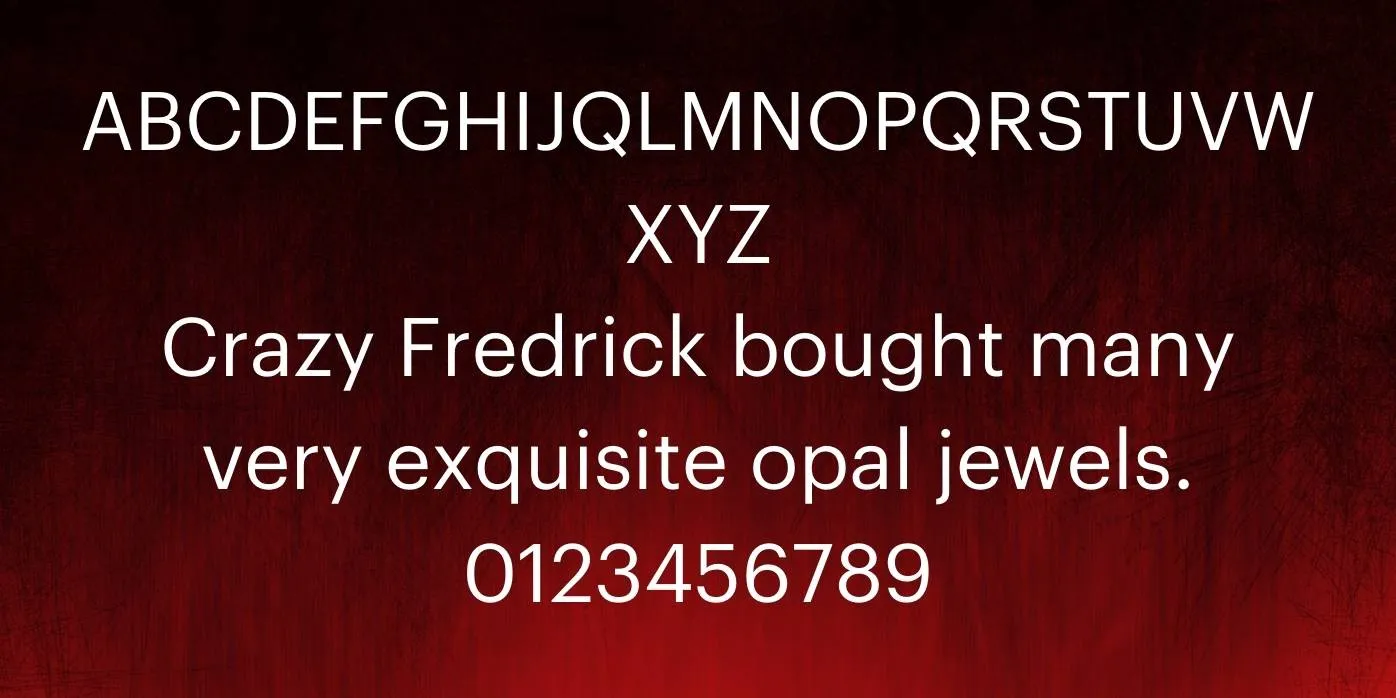
Graphik Font
Let’s introduce a perfect and awesome font family that is known as Graphik Font. This tremendous font was designed by Brilliant designer Christian Schwartz in the year 2009. One more most famous typeface, known as Kollektif Font makes impressive to this font. It is most frequently used for various famous purposes such as for different brands, ads, and various signatures.
This classy font is available in different unique styles and weights which is why it is used by various designers and companies. This stunning font has comes in twenty styles and unique eight weights. Bold, Italic, Medium are some common weights. This font supported a large number of languages because for this reason it is used all over the world for various projects and functions.
This font is famous and provides flawless results to all brands. This font is unique for its many important characters. Its characters are Lowercase, Uppercase, symbols, and many more other famous characters. It provides the facility of an online tool generator.